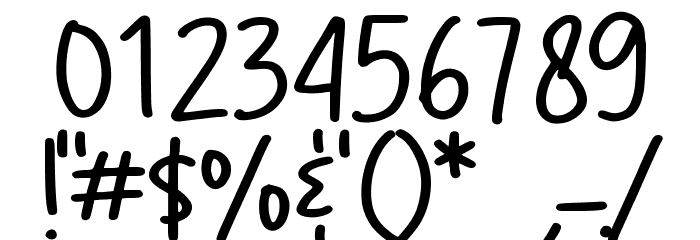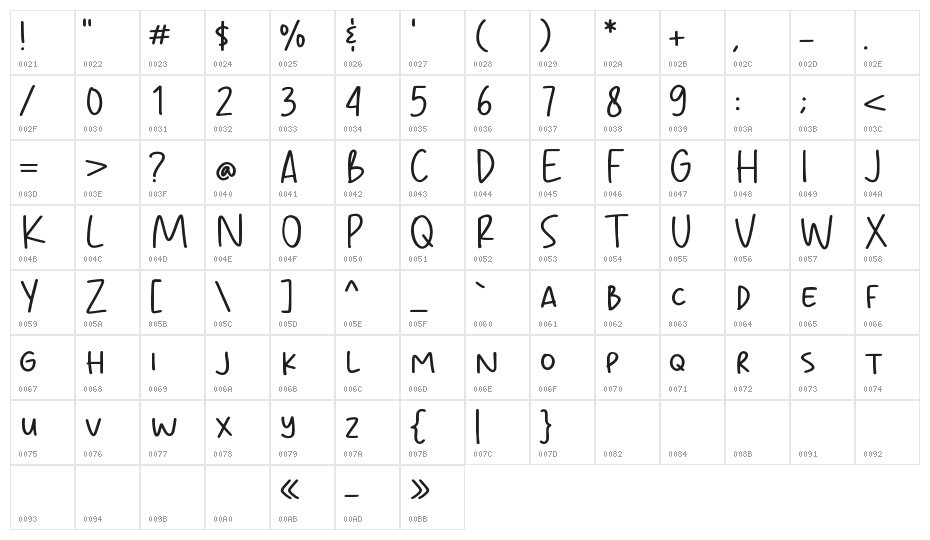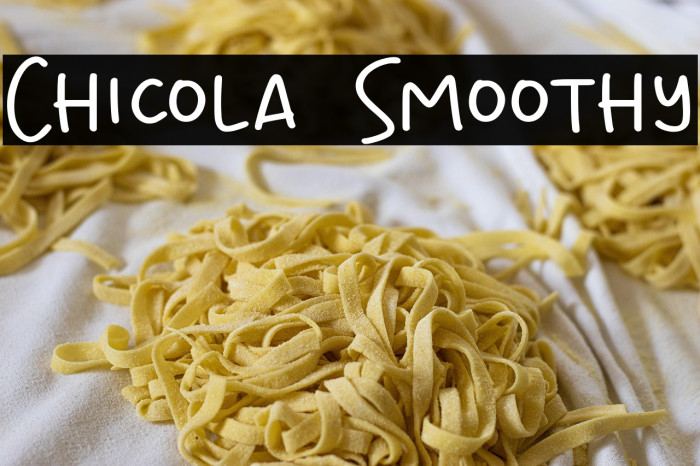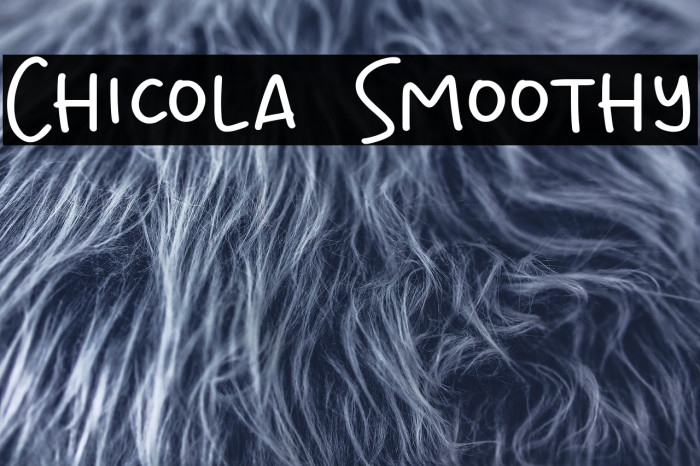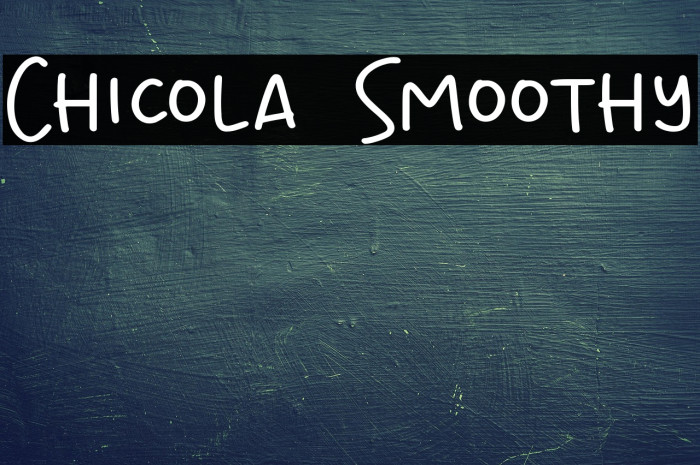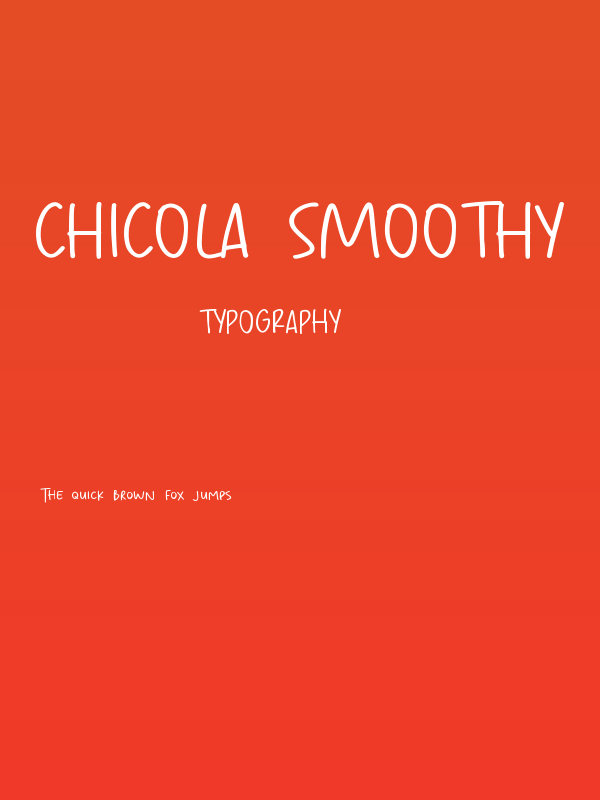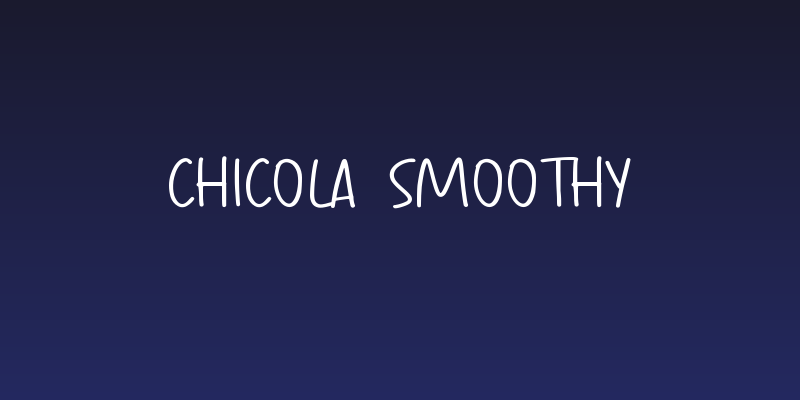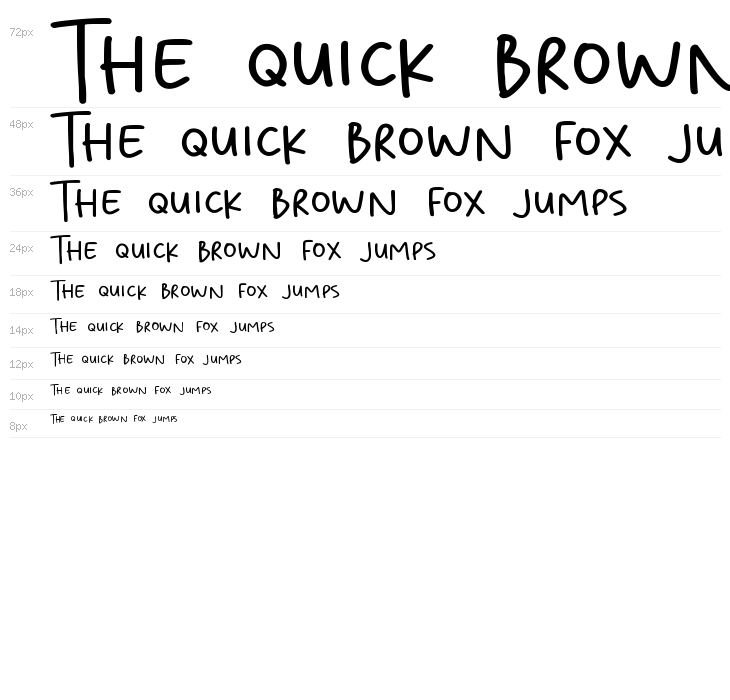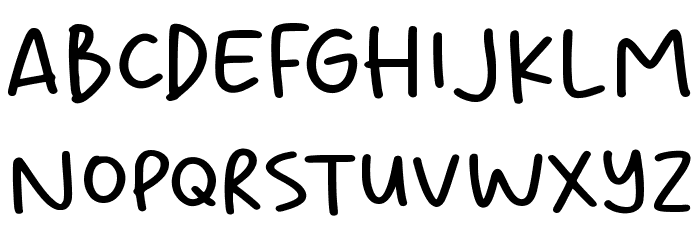
Chicola Smoothy Font
Chicola Smoothy Description
This font features a playful and casual handwritten style, characterized by smooth, rounded strokes and a consistent flow. The letters are slightly slanted, giving it a dynamic and lively appearance. The uppercase and lowercase letters maintain a uniform height, contributing to its readability. The numbers and special characters are crafted with the same smooth curves, ensuring a cohesive look across all elements. This font exudes a friendly and approachable vibe, making it suitable for projects that require a personal touch.
| Proposed Projects | Ideal for greeting cards, children's books, personal branding, and social media graphics. |